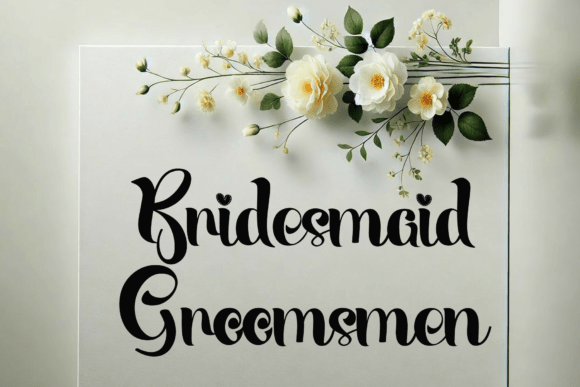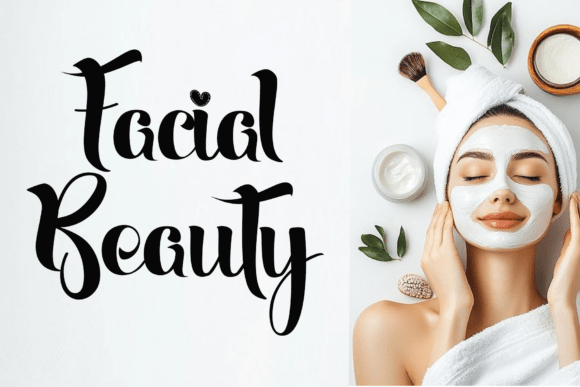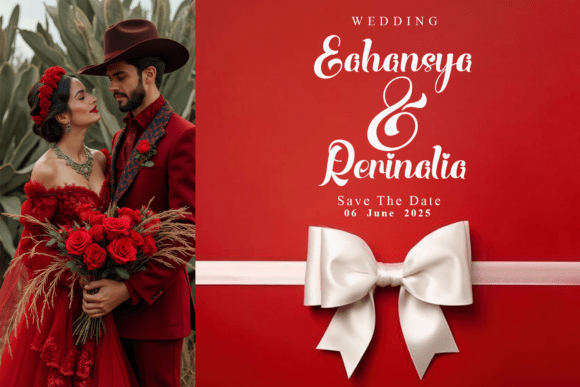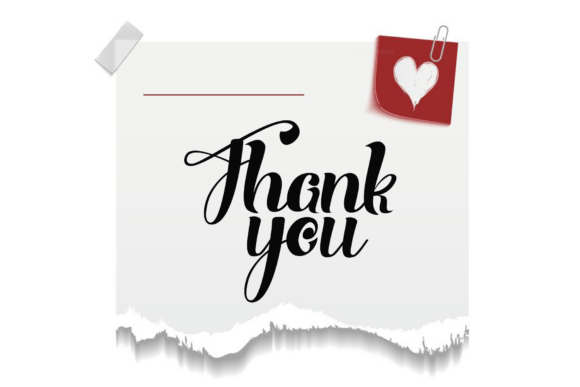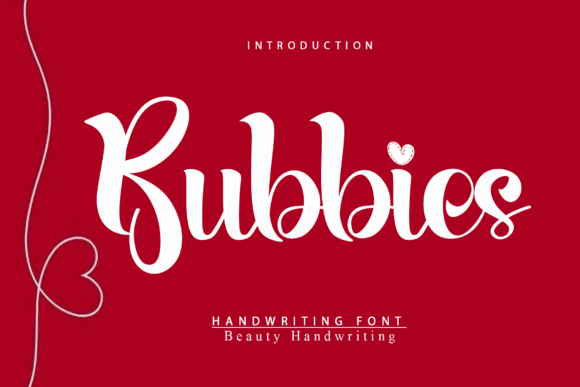
The Bubbies Font: Elevate Your Designs with Elegance and Class
I’ll never forget the time I was working on a wedding invitation project, and my client asked for a font that exuded elegance and sophistication. I scoured the internet, tried countless fonts, but nothing seemed quite right. That was until I stumbled upon the Bubbies font. ✨ With its trendy, handwritten style and impeccable form, it instantly elevated my design and impressed my client. In this article, I’ll share my experience with the Bubbies font, its features, and how to make the most of it in your design projects.
• ✨ Elegant and Classy: Bubbies font is perfect for designs that require a touch of sophistication and refinement.
• ✅ Contemporary Atmosphere: The font’s modern feel makes it ideal for projects that need a fresh and current look.
• 💫 Timeless Classic Calligraphy: Bubbies font draws inspiration from classic calligraphy, giving it a timeless appeal.
While the Bubbies font is excellent, there are a few things to keep in mind: 🤔
• ⚠️ Limited Use in Small Sizes: The font’s intricate details can get lost when used in very small sizes.
• ⚠️ Not Suitable for Body Text: Bubbies font is best used for headings and titles, as it may not be the most readable font for long blocks of text.
The Story Behind Bubbies Font
The Bubbies font was designed with the intention of creating a modern, elegant script font that pays homage to timeless classic calligraphy. The designer aimed to craft a font that would add a touch of sophistication and refinement to any design project. While the real story behind the font’s creation may be unknown, it’s clear that the Bubbies font has become a popular choice among designers and crafters.
Q: What is the Bubbies font best used for?
A: The Bubbies font is best used for designs that require elegance and sophistication, such as wedding invitations, branding, and packaging.
Q: Is the Bubbies font available in different languages?
A: The Bubbies font may not have extensive language support, but it can be used with languages that use the Latin alphabet.